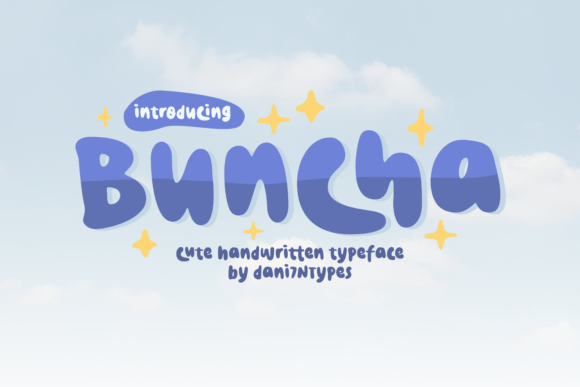
Buncha Font: The Ultimate Display Typeface for Cheerful Designs
Are you tired of using the same old fonts for your designs? Look no further than Buncha Font, a chubby and playful handwritten display typeface that’s sure to add a cheerful vibe to your projects. With its rounded shapes and bouncy flow, Buncha is perfect for designers and crafters who want to infuse their work with a fun, friendly, and youthful touch.
What is Buncha Font?
Buncha Font is a unique and charming typeface that’s designed to make your words pop with happiness. Its bold yet adorable look makes it perfect for a wide range of creative projects, from greeting cards and quotes to posters, invitations, and social media posts. Whether you’re a designer, crafter, or DIY enthusiast, Buncha Font is sure to become your go-to choice for adding a playful touch to your work.
Key Features of Buncha Font
- Rounded shapes: Buncha Font features rounded shapes that give it a soft and cuddly feel. Perfect for designs that need a gentle touch!
- Bouncy flow: The font’s bouncy flow adds a playful and energetic vibe to your designs, making them hard to ignore.
- Bold and adorable: Buncha Font is bold and eye-catching, yet adorable and charming. It’s the perfect combination of fun and sophistication.
- Handwritten: As a handwritten display typeface, Buncha Font has a personal and human touch that’s perfect for designs that need a bit of personality.
Buncha Font is versatile and can be used for a wide range of creative projects, including:
- Greeting cards: Add a cheerful touch to your greeting cards with Buncha Font’s playful and friendly vibe.
- Quotes: Make your quotes stand out with Buncha Font’s bold and eye-catching design.
- Posters: Create eye-catching posters that grab attention with Buncha Font’s fun and energetic flow.
- Invitations: Add a playful touch to your invitations with Buncha Font’s charming and whimsical design.
- Social media posts: Make your social media posts stand out with Buncha Font’s bold and adorable look.
- Children’s books: Buncha Font is perfect for children’s books, adding a fun and youthful touch to your story.
- Stickers: Create fun and playful stickers with Buncha Font’s bold and eye-catching design.
- Packaging: Add a cheerful touch to your packaging with Buncha Font’s playful and friendly vibe.
- Branding: Use Buncha Font to create a fun and youthful brand identity that’s sure to appeal to your target audience.
Why Choose Buncha Font?
- Unique and charming: Buncha Font is a one-of-a-kind typeface that’s sure to make your designs stand out.
- Easy to read: Despite its playful design, Buncha Font is easy to read and understand, making it perfect for designs that need to communicate a message.
- Versatile: Buncha Font can be used for a wide range of creative projects, from digital designs to print materials.
- Fun and youthful: Buncha Font adds a fun and youthful touch to your designs, making them perfect for brands and projects that want to appeal to a younger audience.
In conclusion, Buncha Font is a unique and charming display typeface that’s perfect for designers and crafters who want to add a cheerful vibe to their designs. With its rounded shapes, bouncy flow, and bold yet adorable look, Buncha Font is sure to become your go-to choice for a wide range of creative projects. So why wait? Say hello to Buncha Font and start creating fun and playful designs today!